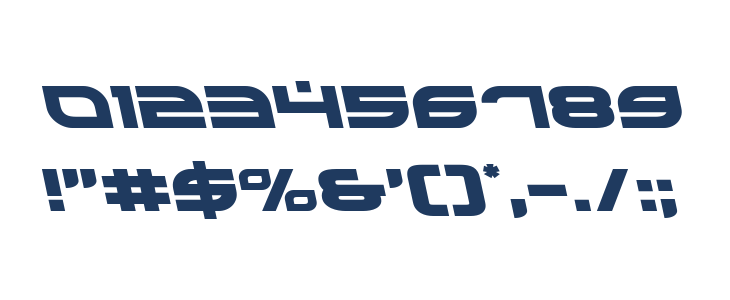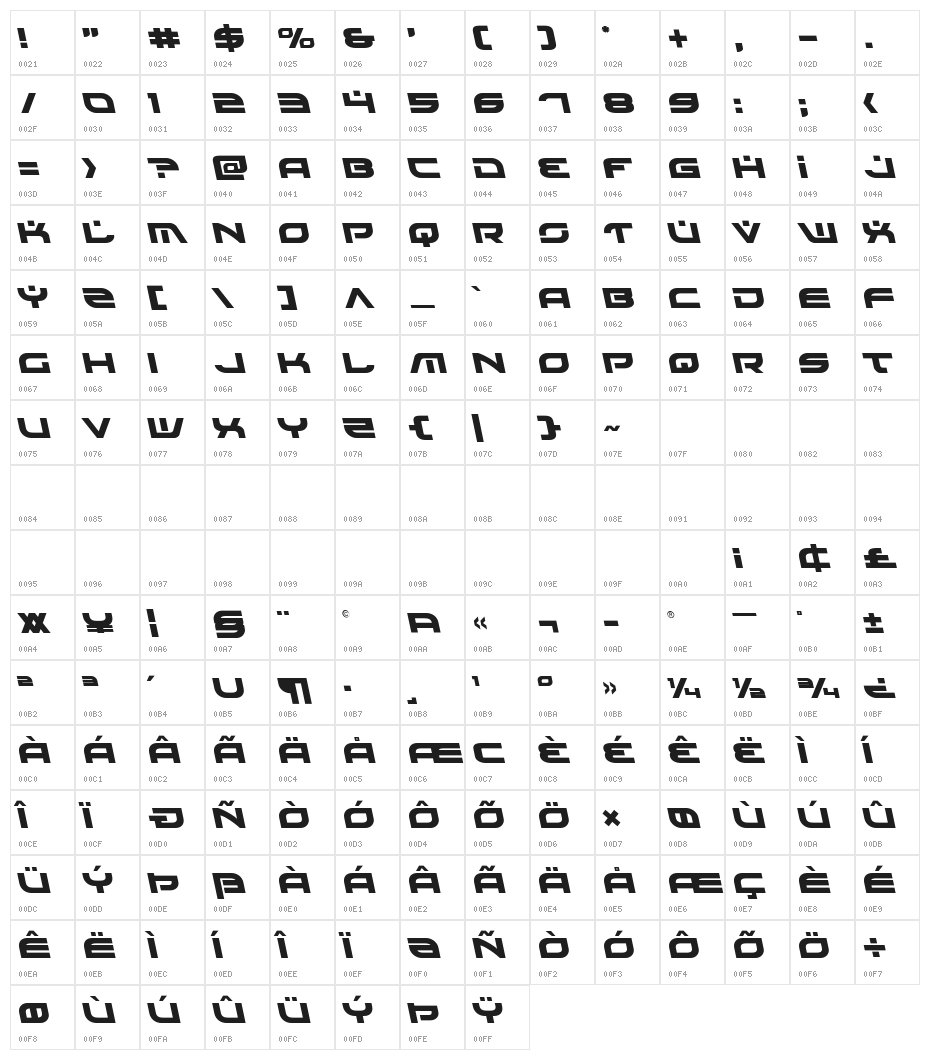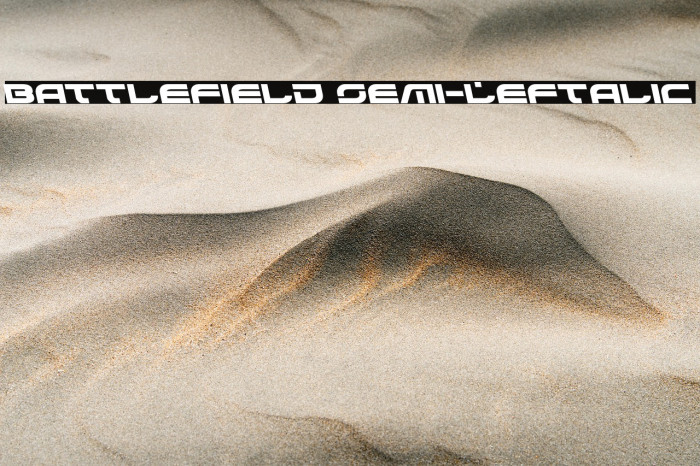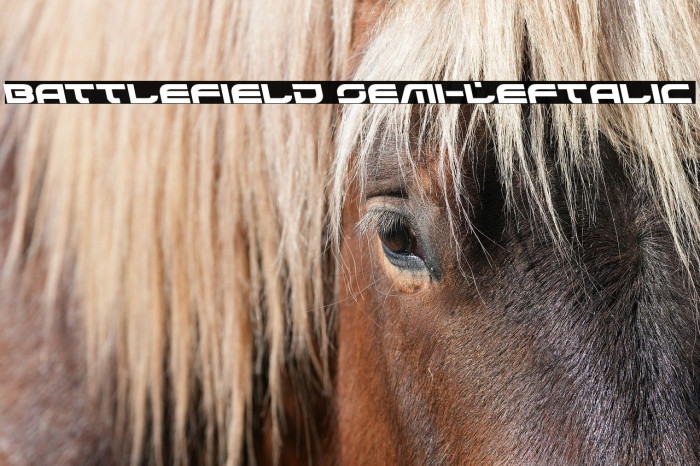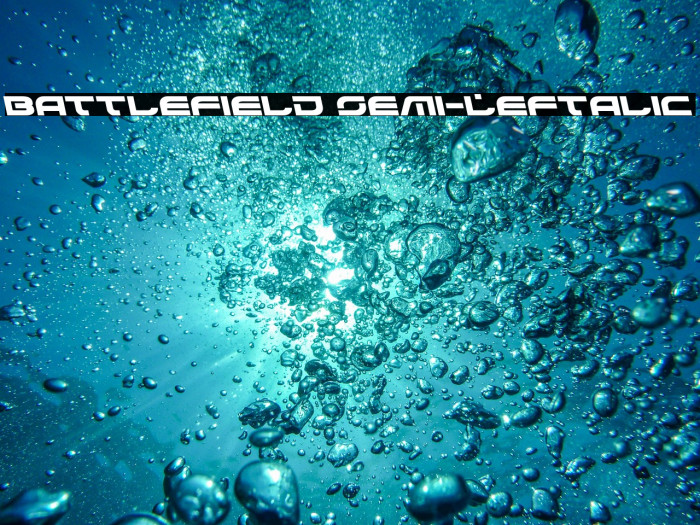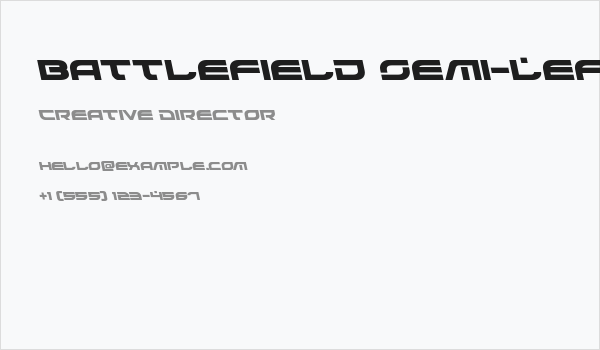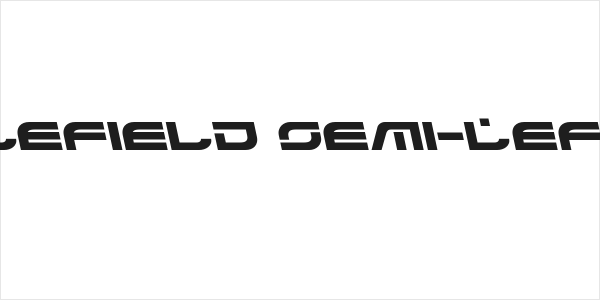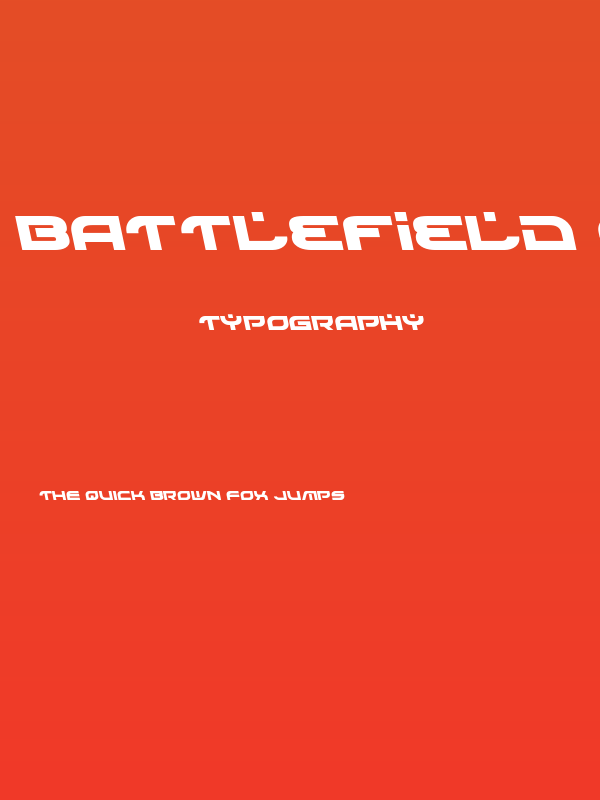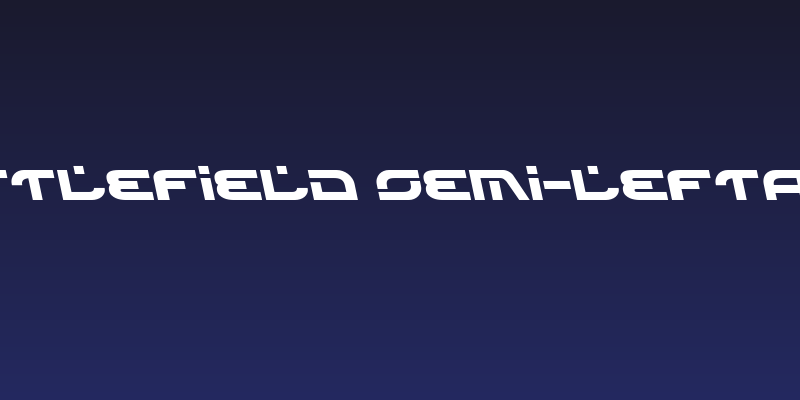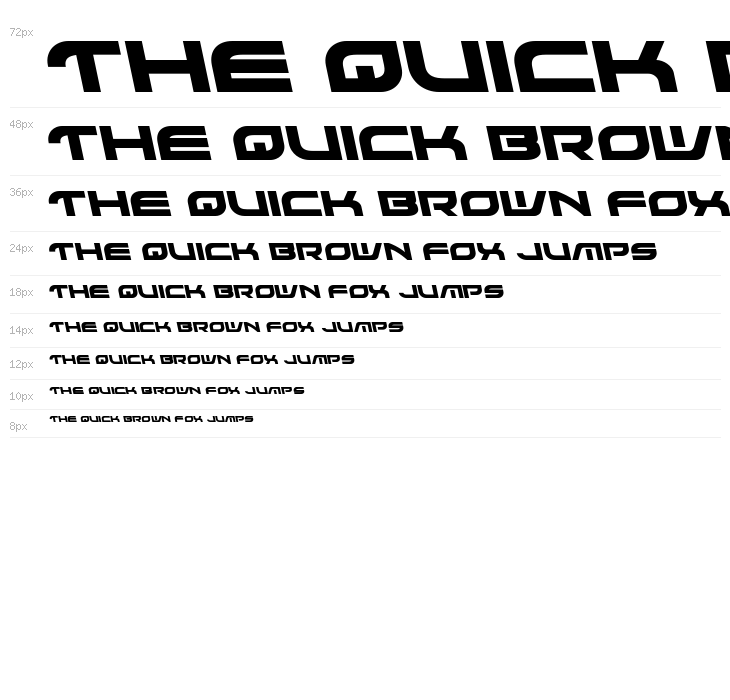
Battlefield Semi-Leftalic Font
Battlefield Semi-Leftalic Description
This font features a bold, futuristic design with a semi-italic slant, giving it a dynamic and forward-moving appearance. The characters are constructed with geometric precision, incorporating sharp angles and clean lines that convey a sense of modernity and technological advancement. The uppercase letters are particularly striking, with a consistent height and width that create a uniform look. The lowercase letters maintain the same aesthetic, ensuring readability while preserving the font's unique style. Numbers and special characters are designed to match the overall theme, making this font versatile for various applications.